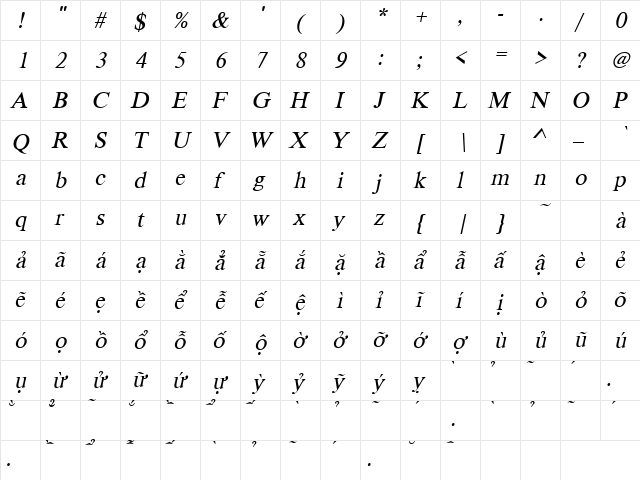
VietnameseTimesSSK Italic Font Preview
VietnameseTimesSSK Italic
Design Context for VietnameseTimesSSK Typeface
VietnameseTimesSSK is a composed and adaptable typeface that performs quietly and consistently across a wide range of design contexts. The dynamic lean of this cut emphasises speed and emphasis in any layout.